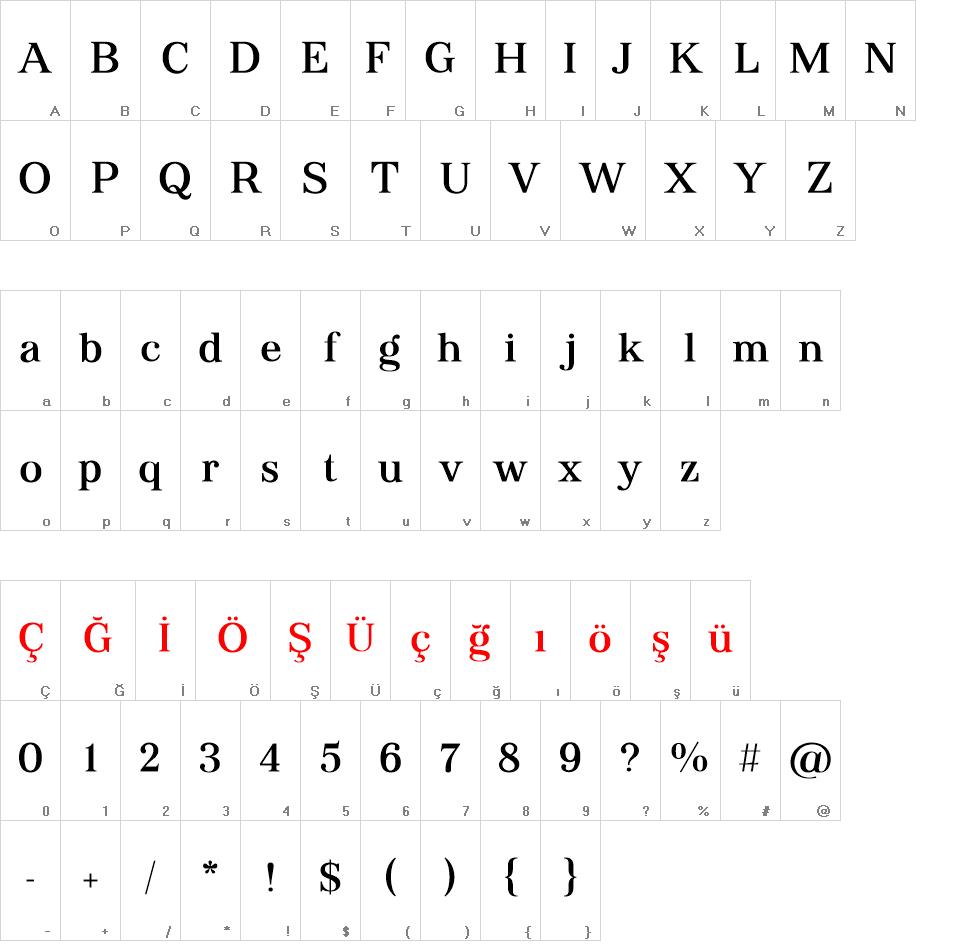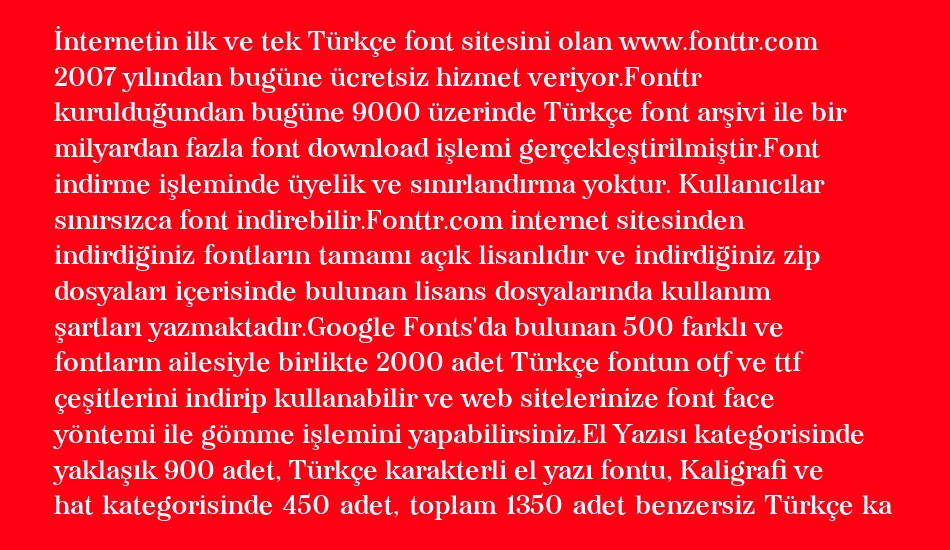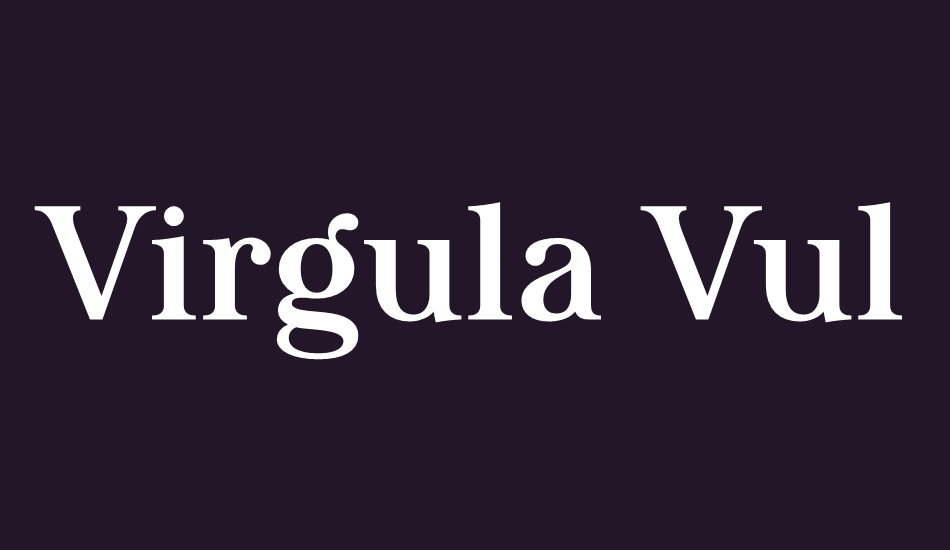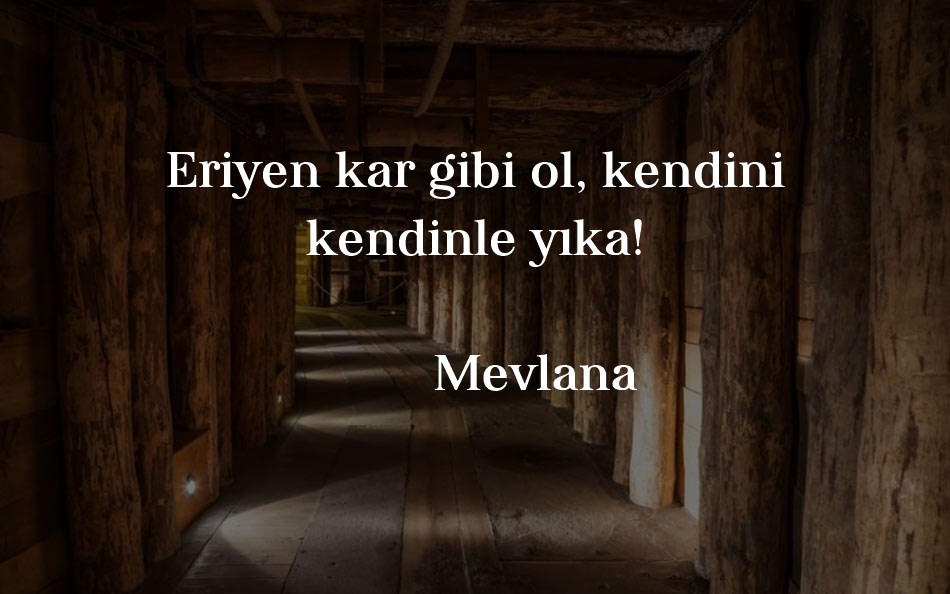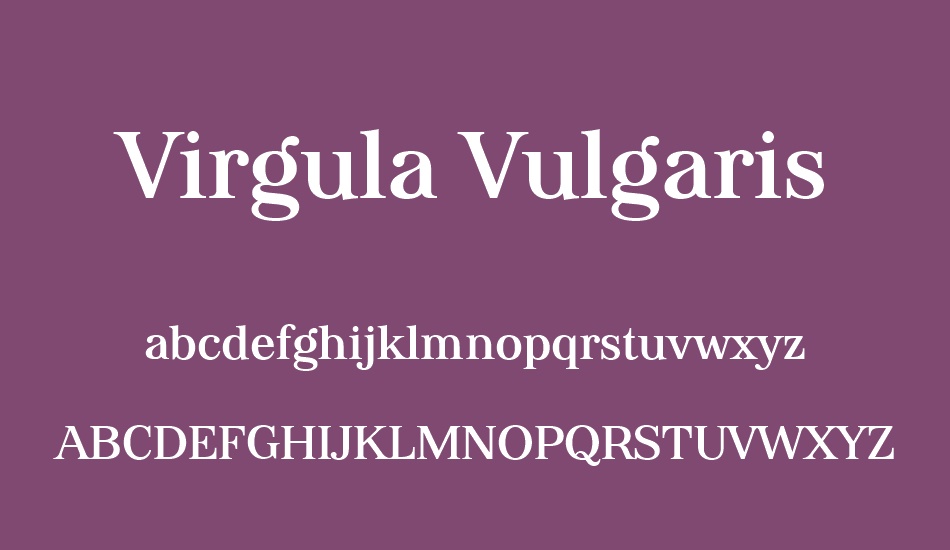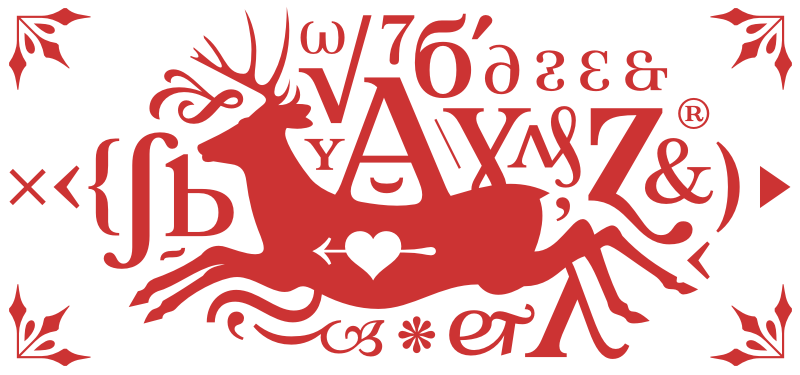
Virgula Vulgaris font
Virgula Vulgaris (Common Comma in Latin) is meant to sum up the most usual forms of a serif font, avoiding styles and side-effects that would only come between the reader and the text.
On a personal level, the font represents another experiment with serifs, this time trying to be “politically correct” in every aspect, leaving the artistic ego behind. The first version created is bold to have a clear distinction between the thin and strong lines for future references. The number of glyphs get extended for the same reason, to see how each character would line up to the same design.
The font is extended to 2,161 glyphs and includes Uppercase, Lowercase, Numerals, Fractions, Latin Extended-A, Latin Extended-B, IPA Extensions, Greek, Cyrillic, Latin Extended, Punctuation, Accents, Currency, Arrows, Decorative Elements, Special Characters.
A few of the open type features are the generated arrows, numerators, ligatures, small caps, stylistic alternates, fractions and slashed zeros